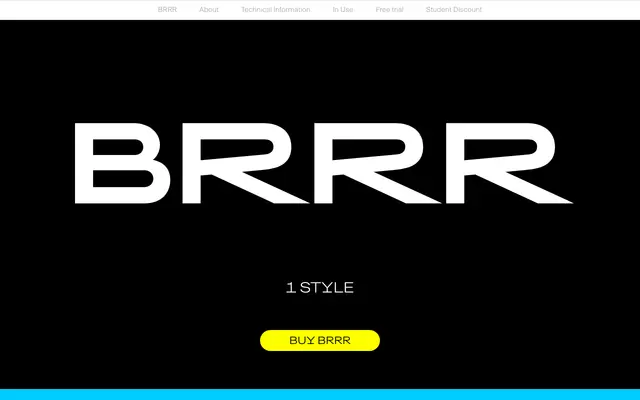
Brrr
Swiss Typefaces · Emmanuel Rey
A display typeface designed by Emmanuel Rey at Swiss Typefaces, engineered by Christoph Koeberlin.
Designed by Emmanuel Rey under the art direction of Swiss Typefaces, Brrr is a display typeface with font engineering by Christoph Koeberlin. The page provides limited detail on weights or styles, suggesting a focused release rather than an extensive family. Swiss Typefaces consistently produces work with strong graphic character suited to editorial and identity contexts.
The name and foundry context suggest an expressive display typeface; Swiss Typefaces typically produces distinctive, characterful display and text faces with strong graphic personality.